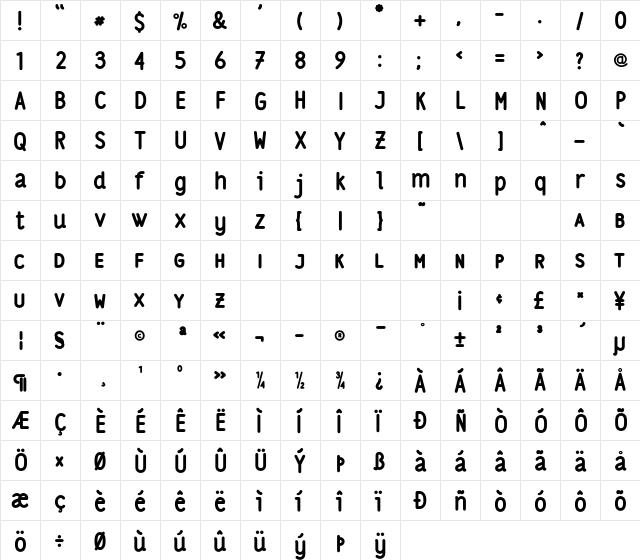
LS Bold Font Preview
LS Bold
LS Bold Font Details
| Foundry | BSozoo |
| Designer | BSozoo |
Design Context for LS Typeface
LS is a composed and adaptable typeface that performs quietly and consistently across a wide range of design contexts. The heavy weight commands attention and anchors typographic hierarchies.